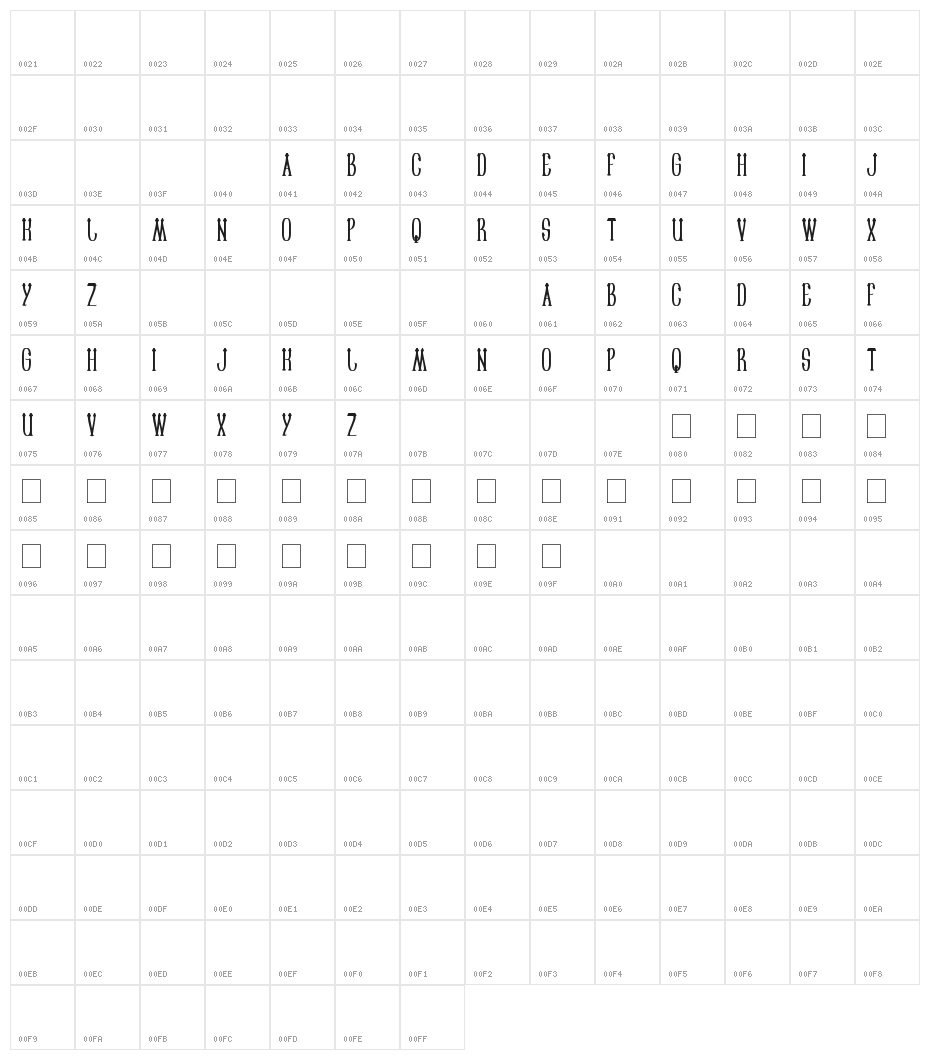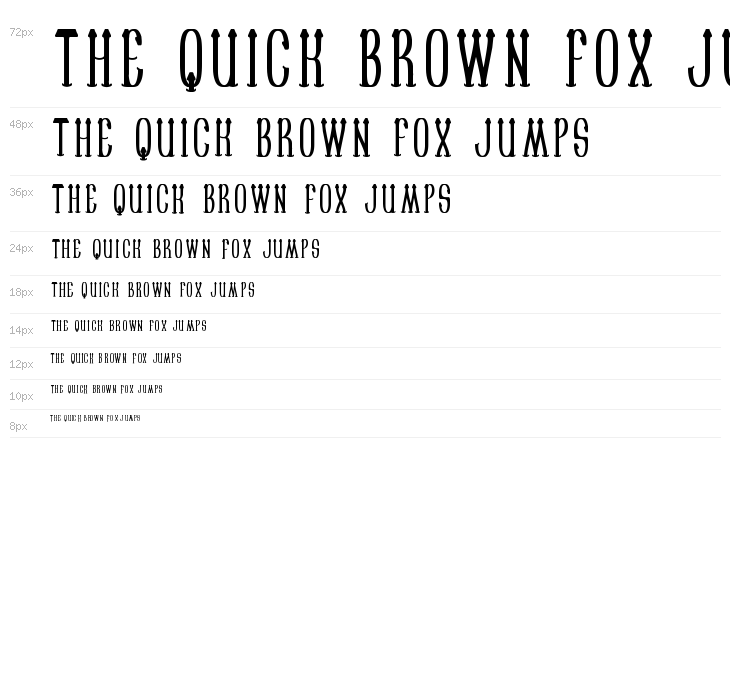
SAILORMAN Font
SAILORMAN Description
This font features a bold and decorative style with a nautical theme. The characters are tall and narrow, with anchor-like serifs that give a unique maritime feel. The uppercase letters are particularly striking, with consistent vertical strokes and playful curves that mimic the shape of anchors. The overall design is both eye-catching and thematic, making it ideal for projects that require a strong visual impact. The font's distinctiveness lies in its ability to convey a sense of adventure and the sea, perfect for creative and thematic designs.
| Width | Condensed |
| Use Case | Logos, Headlines, Thematic Designs |
| Proposed Projects | Ideal for maritime-themed posters, logos, and branding materials. |